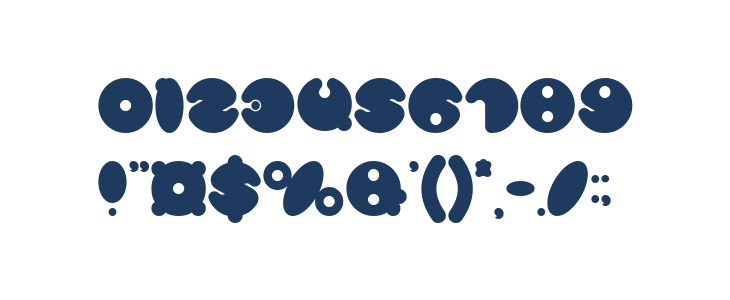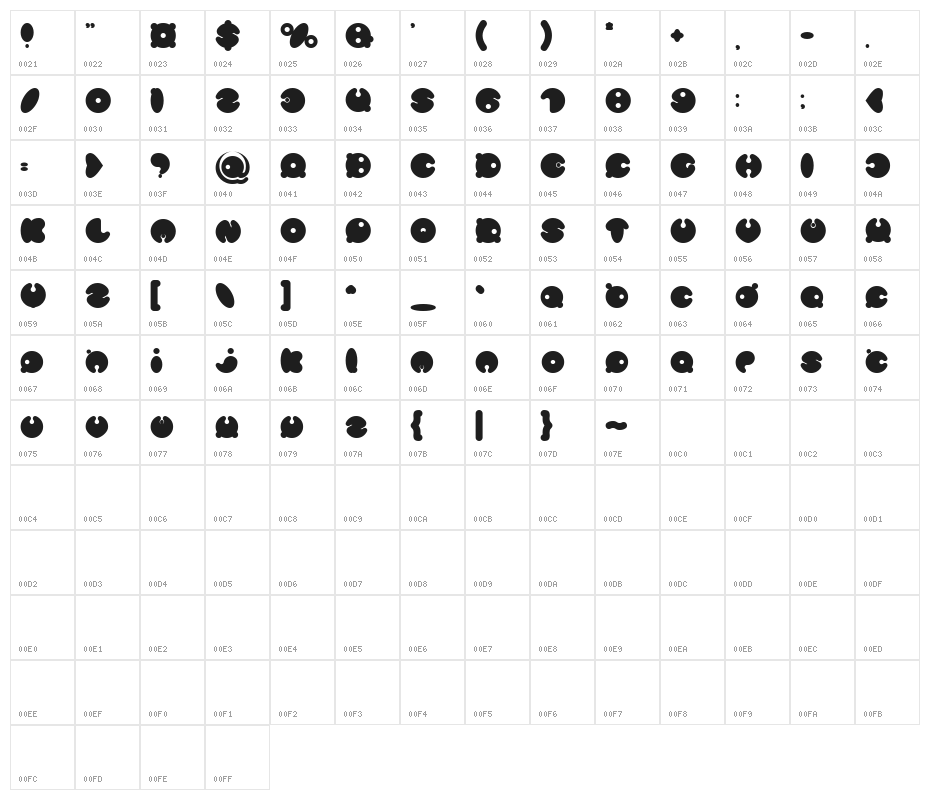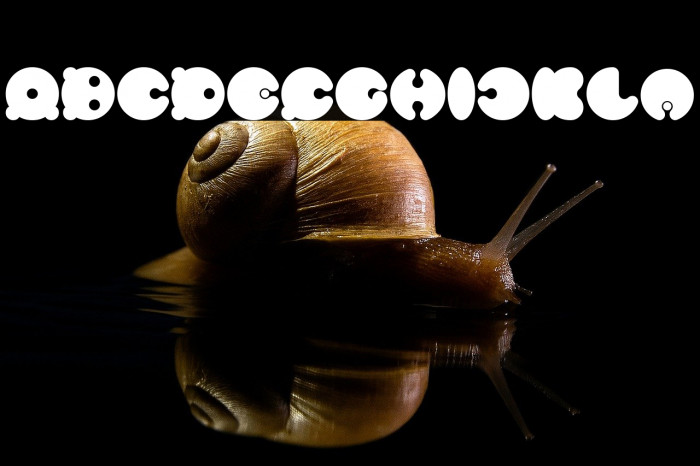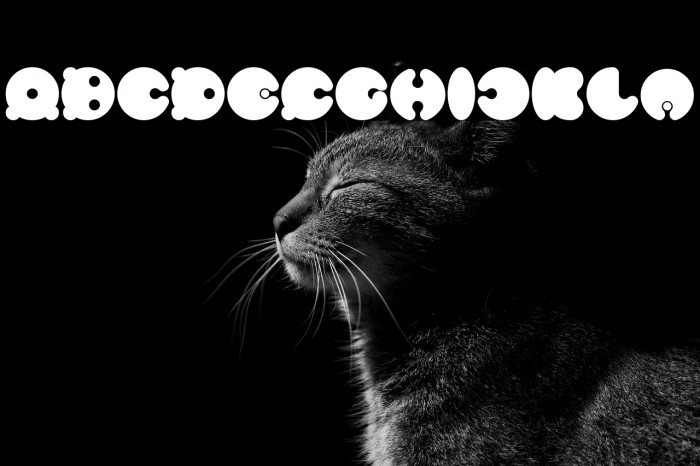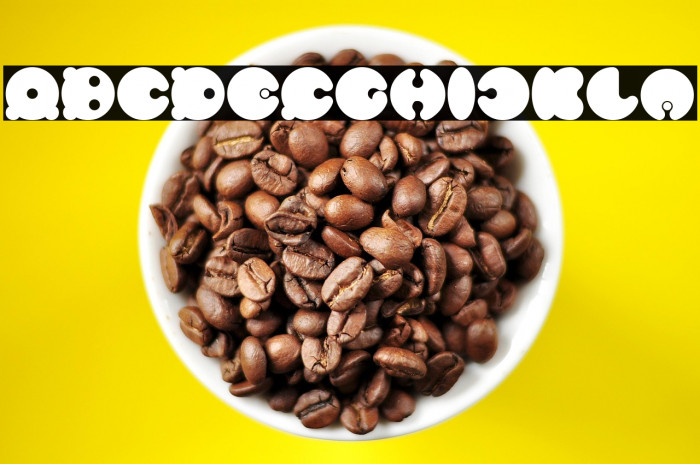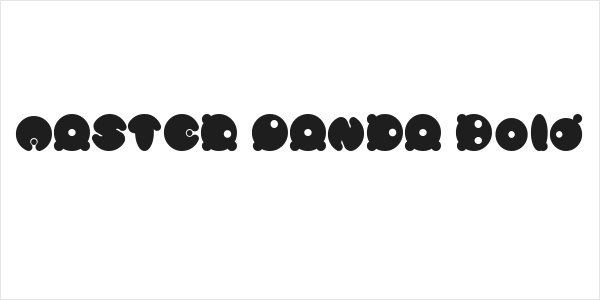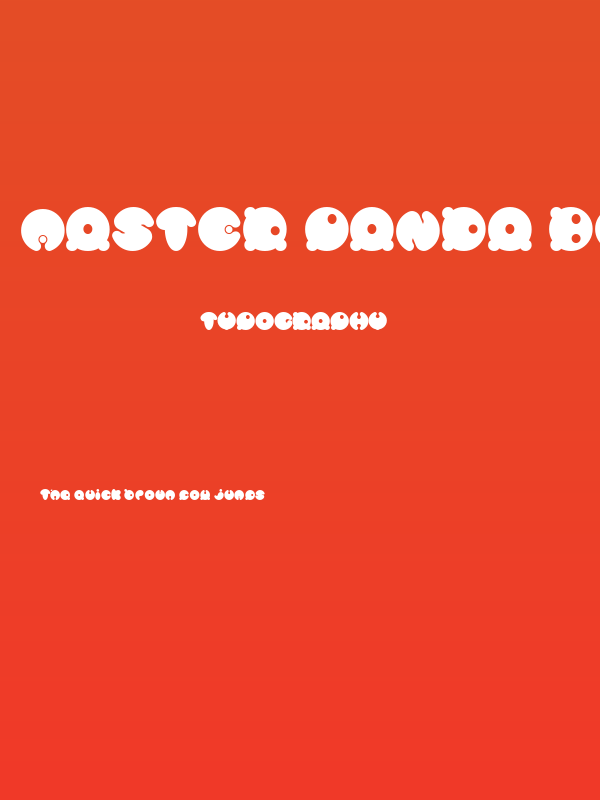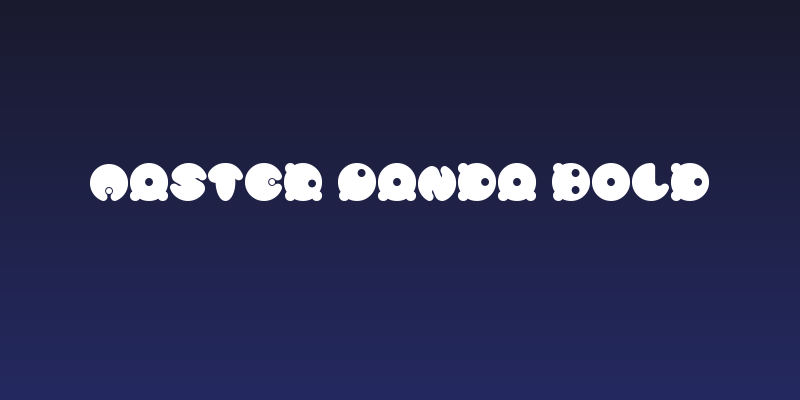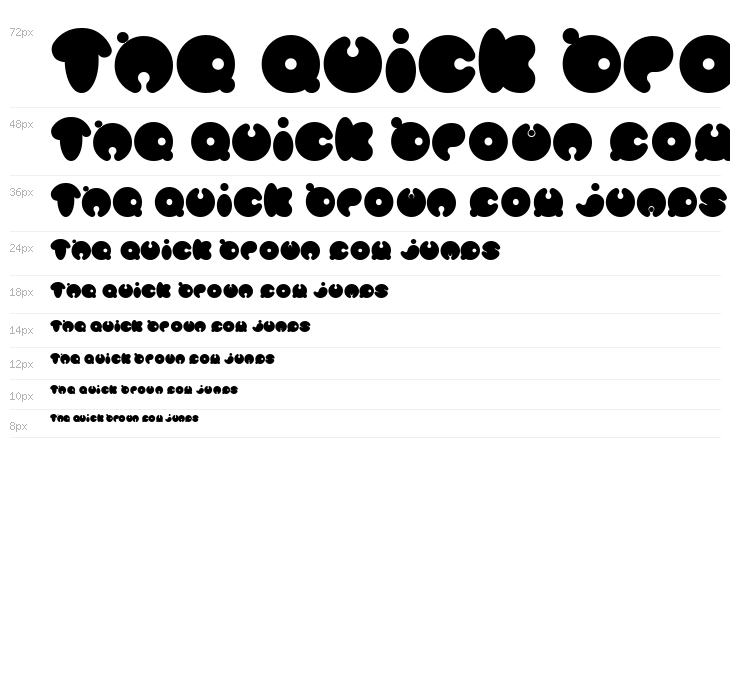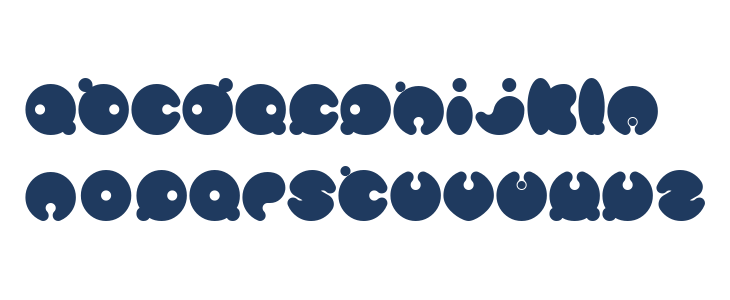
MASTER PANDA Bold Font
MASTER PANDA Bold Description
This font features a bold, playful design with rounded, bubble-like characters that create a whimsical and eye-catching appearance. The letters are heavily weighted, with consistent thickness throughout, giving them a strong presence. The unique style includes circular cutouts within each character, adding an element of fun and creativity. The font maintains a consistent width, ensuring uniformity across all characters. Its distinctive look makes it ideal for projects that require a touch of humor or a bold statement.
| Use Case | Logos, Posters, Headlines |
| Proposed Projects | Perfect for children's books, playful branding, party invitations, or any project needing a fun and bold typeface. |